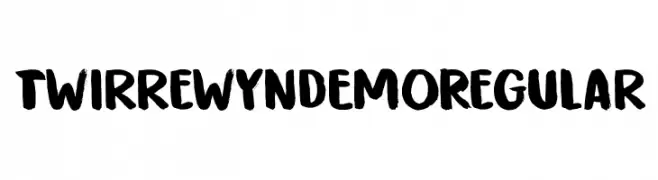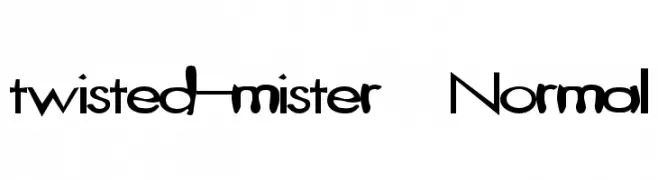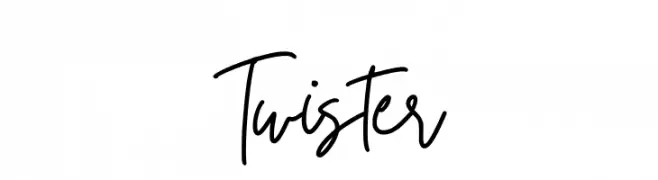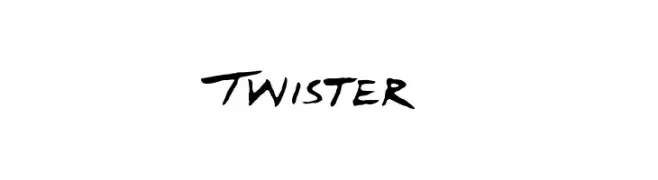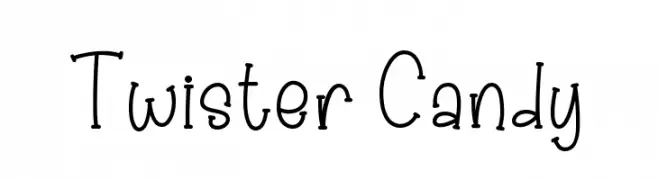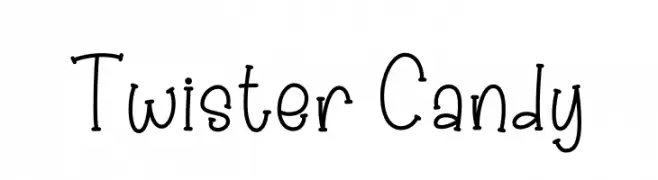
A bold, brush-style font with dynamic, handcrafted strokes.
A dynamic, twisted font with sharp, angular edges and a modern feel.
A whimsical, twisted font with a spooky, supernatural vibe.
A playful and quirky font with twisted, irregular characters.
A lively and fluid handwritten font with a dynamic cursive style.
A bold, hand-drawn font with dynamic, brush-like strokes and a lively appearance.
A playful, hand-drawn font with a whimsical and friendly style.
A playful, hand-drawn font with a whimsical and lively style.